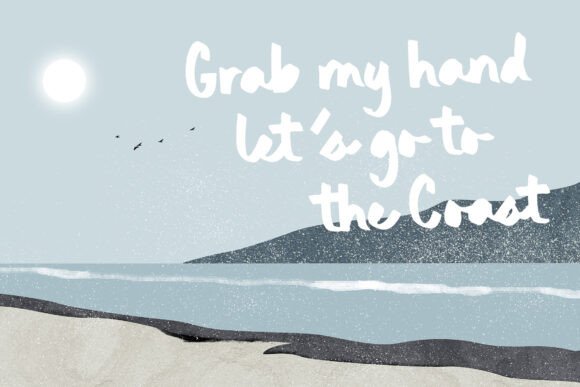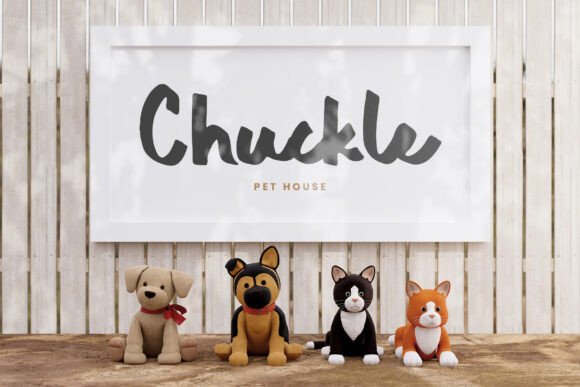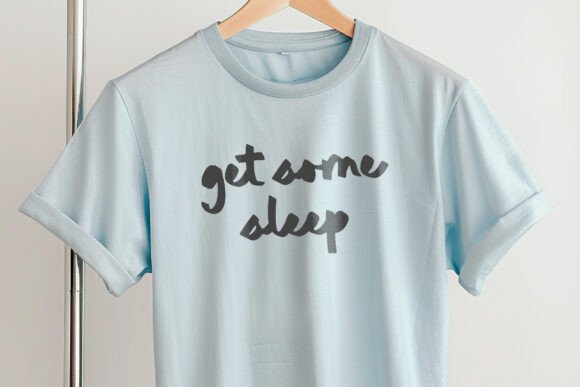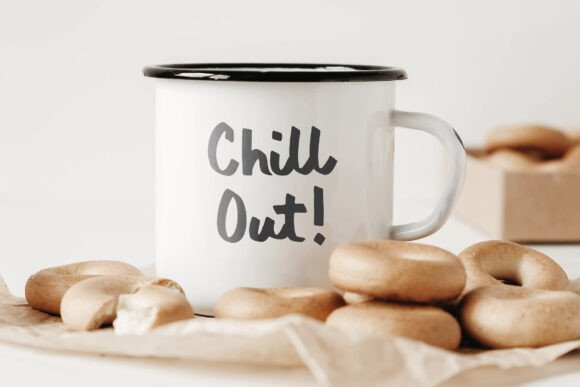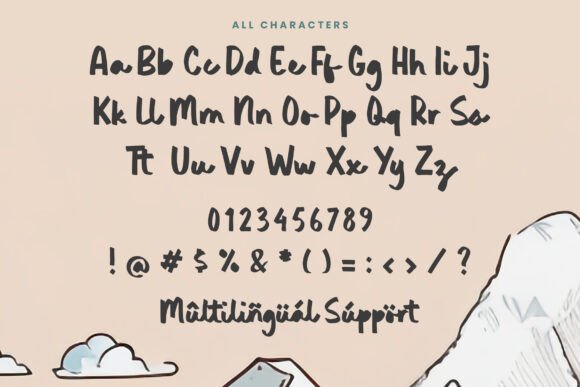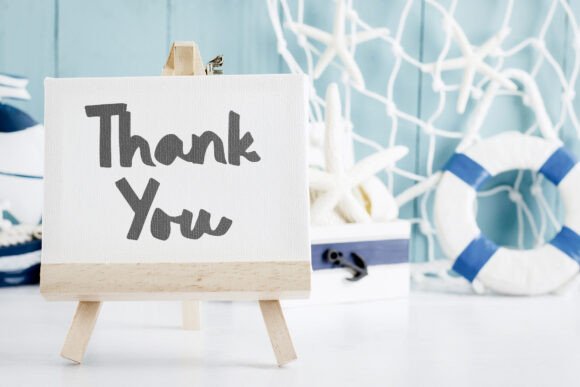
Discover the Timeless Charm of Himalaya Karoline Font
As designers, we’ve all been there – staring at a blank page, searching for the perfect font to bring our creative vision to life. And then, it happens. A chance discovery, a spark of inspiration, and suddenly, our project takes shape. For many, that moment came when they laid eyes on the stunning Himalaya Karoline Font.
This beautiful handwritten script font is more than just a design element – it’s a key to unlocking the perfect balance between elegance and strength. With its flowing, slightly rounded strokes and dynamic letterforms, Himalaya Karoline Font is the ideal choice for designers seeking a high-quality design resource that exudes sophistication while maintaining a casual, approachable vibe.
Key Features of Himalaya Karoline Font
- Unique, elegant script font ideal for creative projects and design resources.
- Perfect for adding a touch of sophistication and elegance to various design elements, from logos and headings to quotes and titles.
Honest Review: Himalaya Karoline Font
I recently had the opportunity to work with the Himalaya Karoline Font, and I must say, it’s been a game-changer for my creative projects. This font is a great addition to any design resource, offering a unique and elegant style that’s perfect for a variety of applications.
- Unique and elegant design style
- High quality and versatile
- Easy to use, even for non-experts
- May not be suitable for use in certain creative projects, such as those requiring a bold or playful font
Overall, I’m really impressed with the Himalaya Karoline Font. It’s a fantastic design resource that’s perfect for a variety of creative projects. While it may have some limitations, it’s definitely worth checking out for any designer looking for a high-quality, unique font.
To get the most out of the Himalaya Karoline Font, experiment with different font sizes, colors, and combinations to find the perfect look for your design project.
The Himalaya Karoline Font is commonly used in creative projects that require a unique and elegant touch, such as invitations, posters, and branding materials.